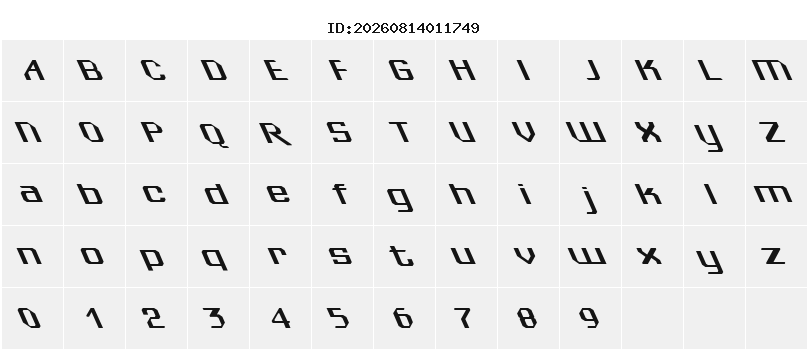
Sydneys Left Preview
• Font Name: Sydneys Left
• Full Font Name: Sydneys Left
About Sydneys Left.ttf
Sydneys Left.ttf is a modern, elegant sans-serif font designed for ultimate readability and visual harmony. Perfect for branding, headlines, web design, and print materials.